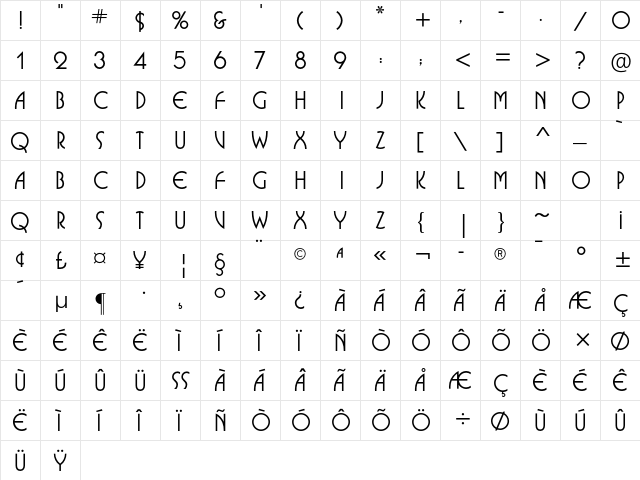
Busorama ITC Std Medium
| Designer | Tom Carnase |
Design Context for Busorama ITC Std Typeface
Busorama ITC Std takes a measured approach to typography — its balanced proportions and neutral character make it a reliable workhorse for both digital and print work.